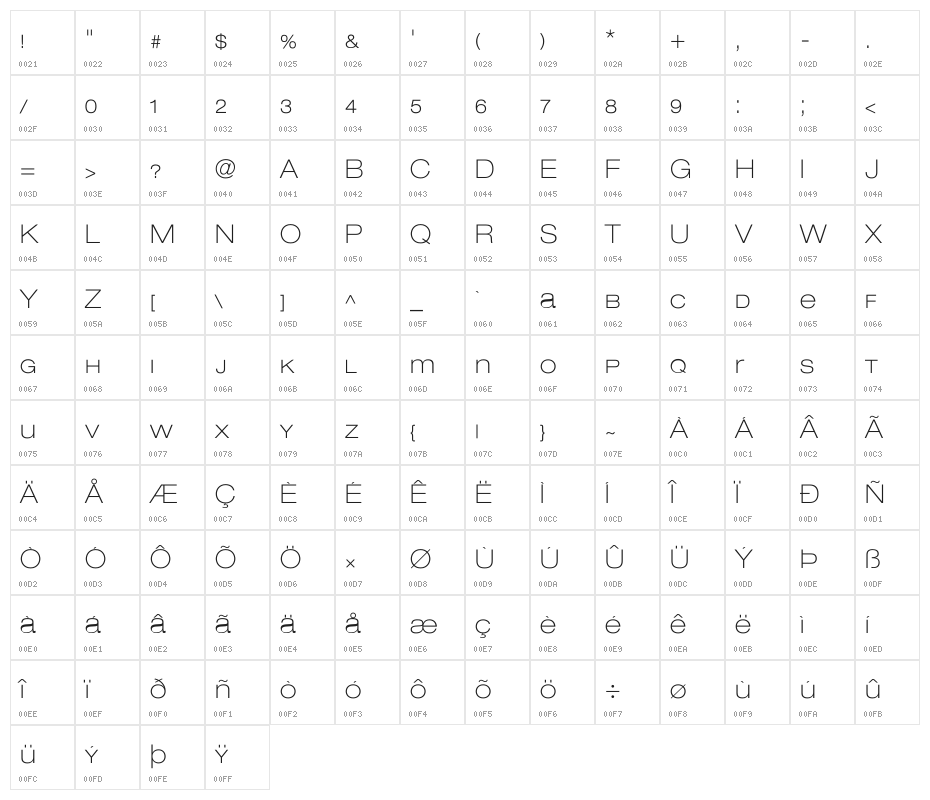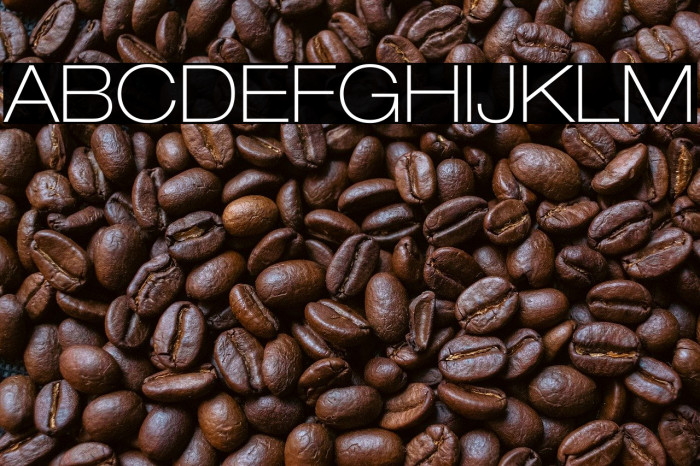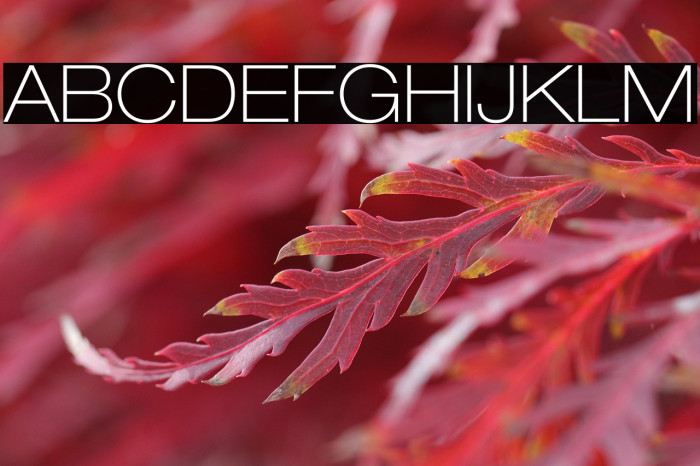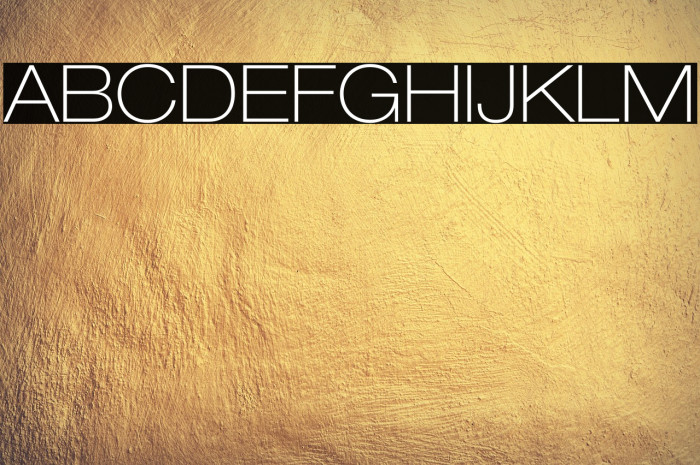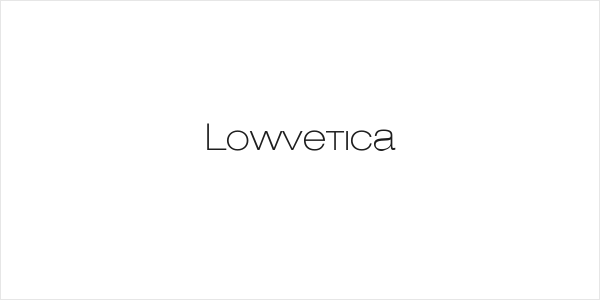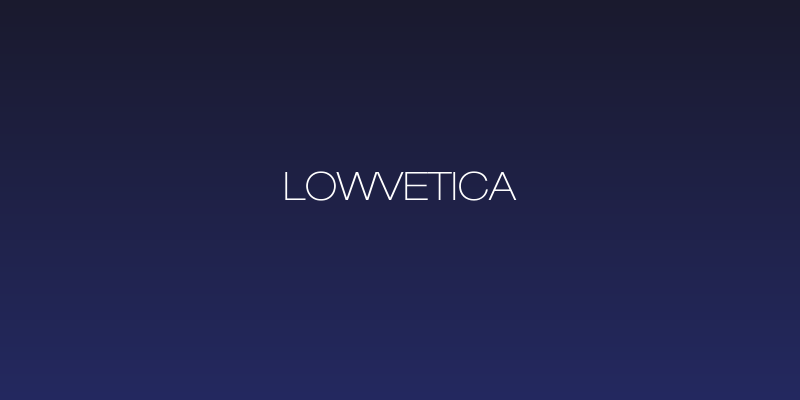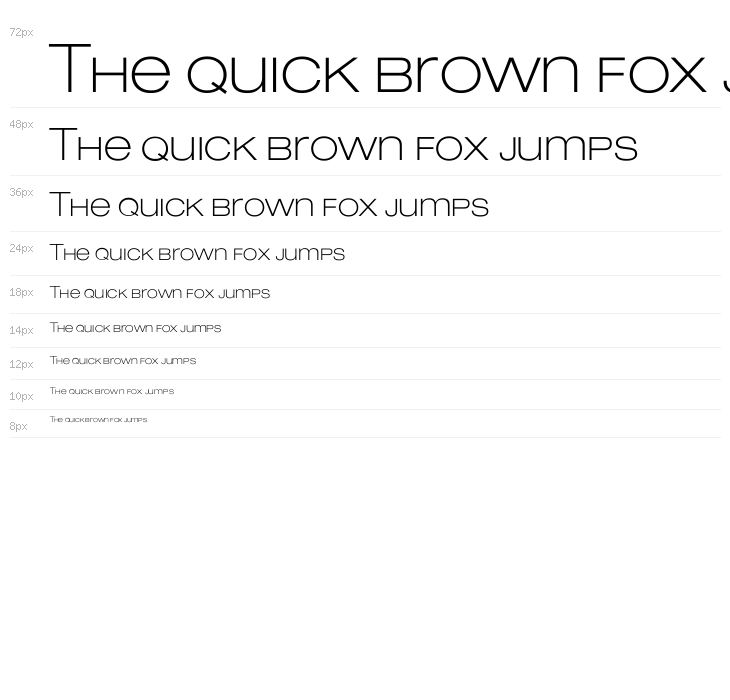
Lowvetica Font
Lowvetica Description
This font features a clean, minimalist design with a geometric structure. The characters are evenly spaced, with a uniform stroke width that gives it a sleek and modern appearance. The uppercase and lowercase letters maintain a consistent height, contributing to a balanced and harmonious look. The numerals and special characters are designed to complement the overall style, making it versatile for various applications. Its simplicity and clarity make it highly readable, suitable for both digital and print media.
Proposed ProjectsIdeal for branding, web design, advertising, and editorial layouts where a modern and clean aesthetic is desired.